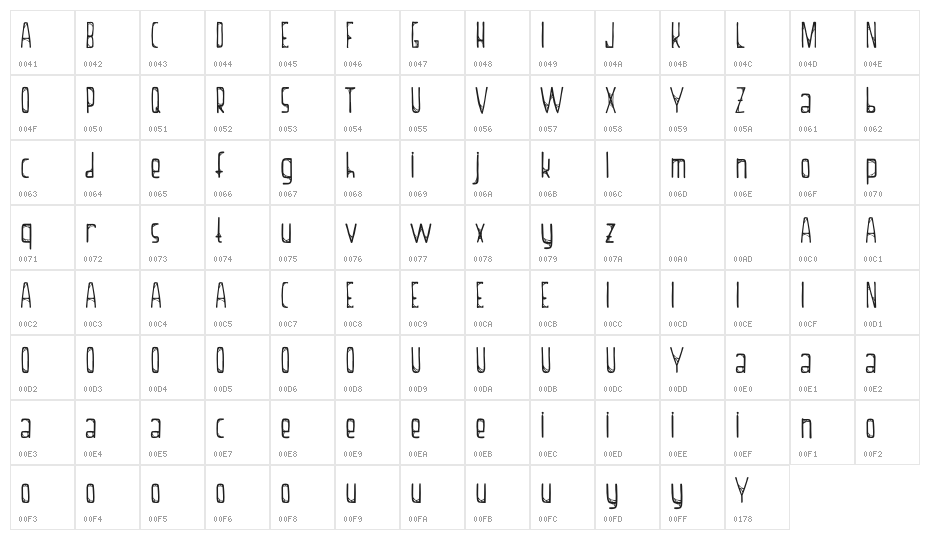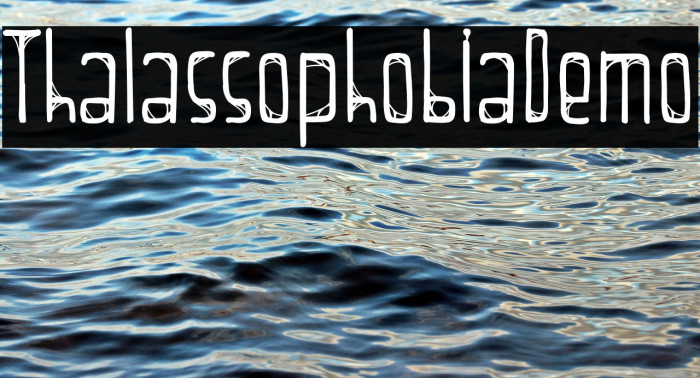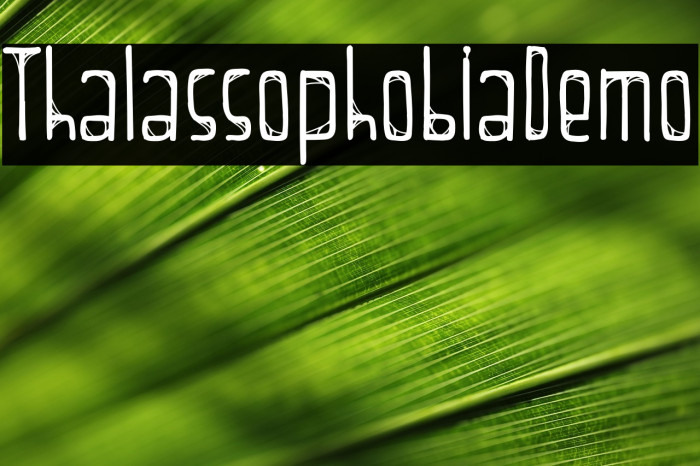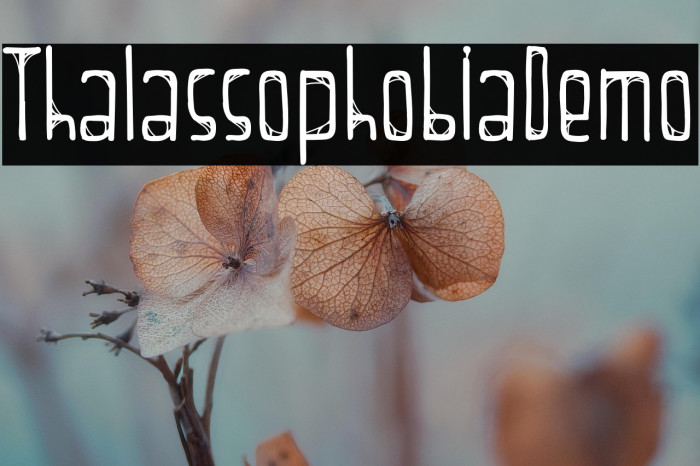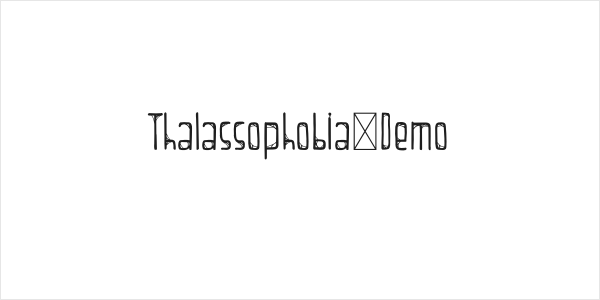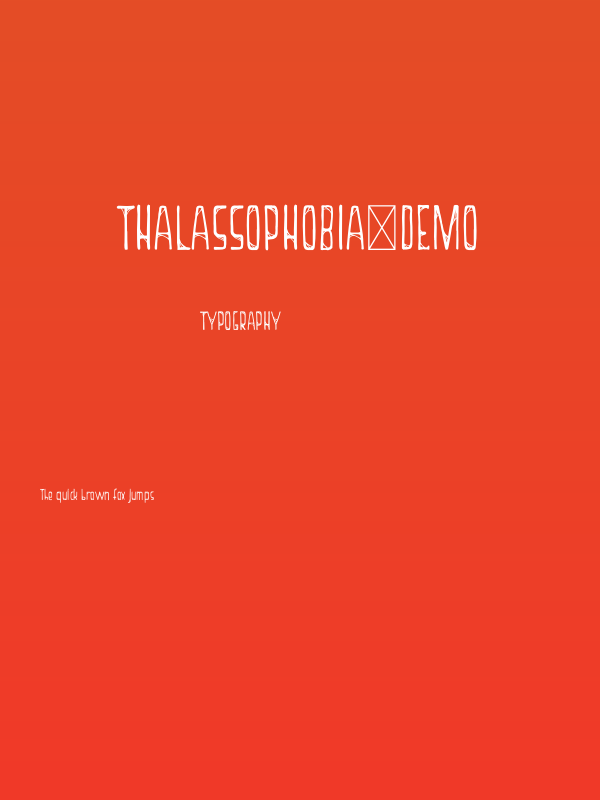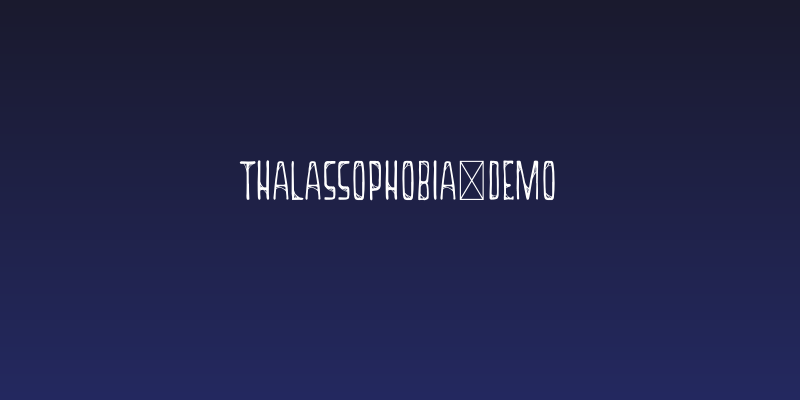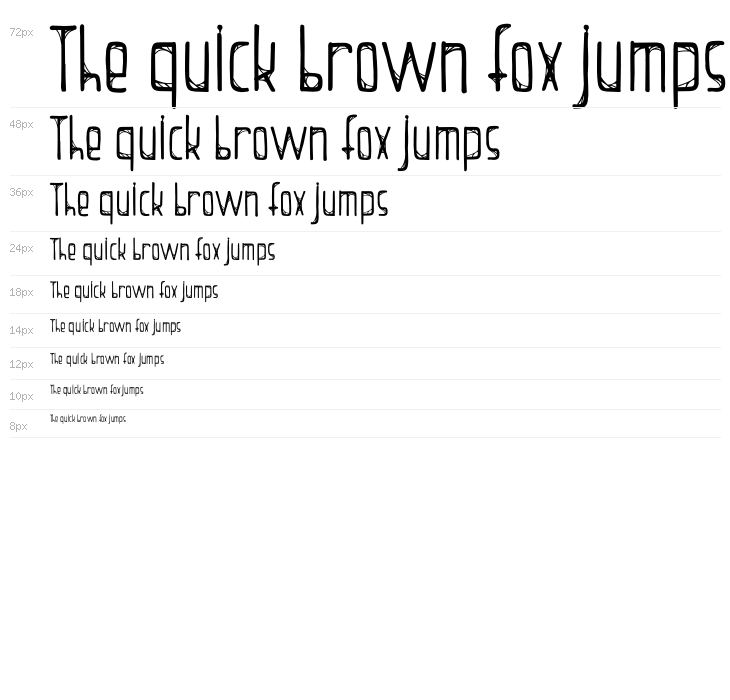
Thalassophobia-Demo Font
Thalassophobia-Demo Description
This font features a unique, hand-drawn style with an organic and slightly chaotic appearance. The characters are tall and narrow, with irregular line thickness that gives them a dynamic and energetic feel. The uppercase letters have a distinct angularity, while the lowercase letters maintain a more fluid and whimsical form. The overall design is reminiscent of sketches or doodles, adding a playful and artistic touch. The absence of traditional serifs and the uneven strokes contribute to its distinctive and unconventional look, making it stand out in creative projects.
| Overall Style | Artistic, Playful |
| Proposed Projects | Ideal for creative projects such as posters, album covers, or artistic branding that seeks a unique and unconventional look. |